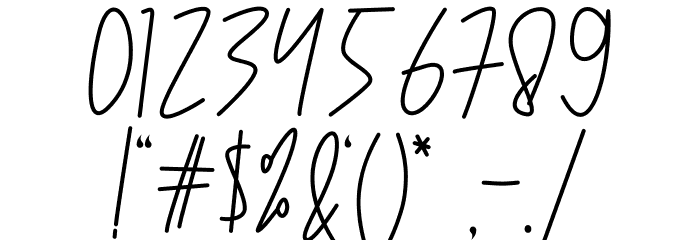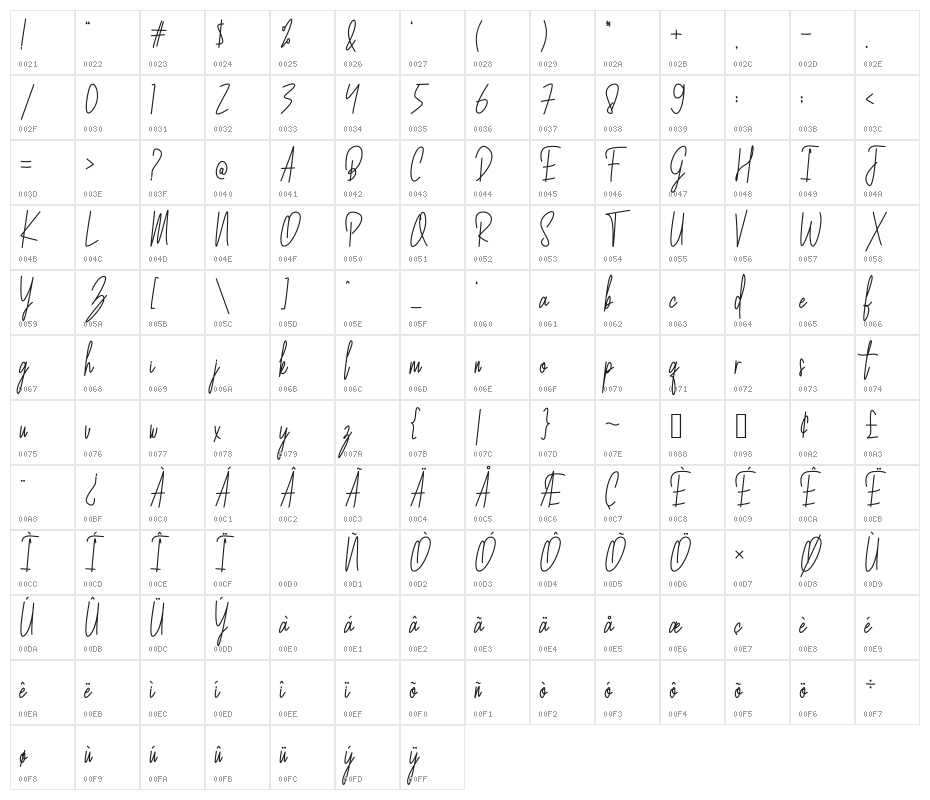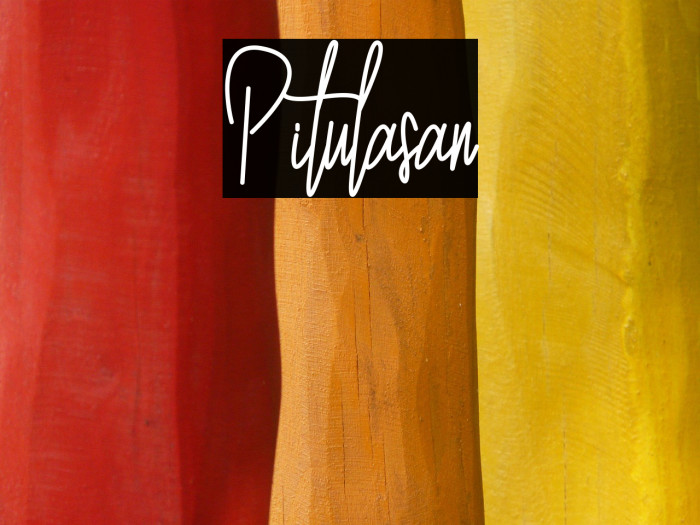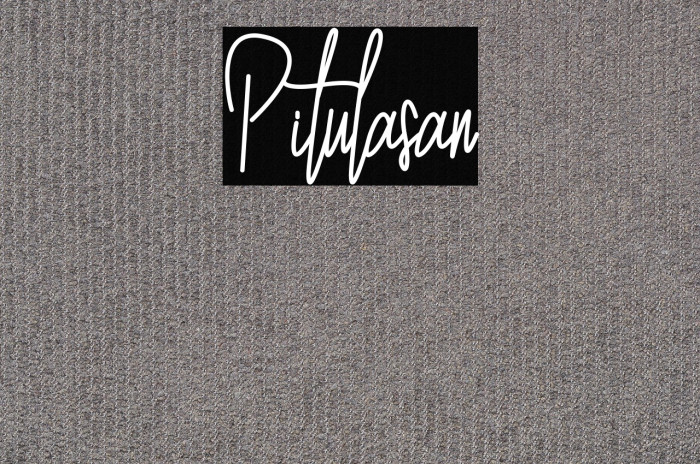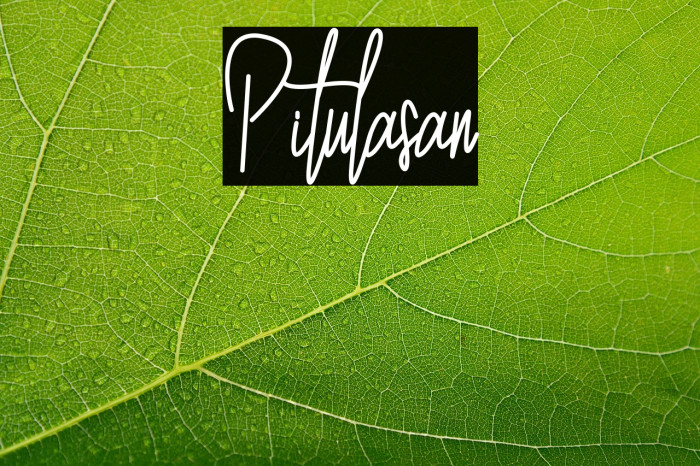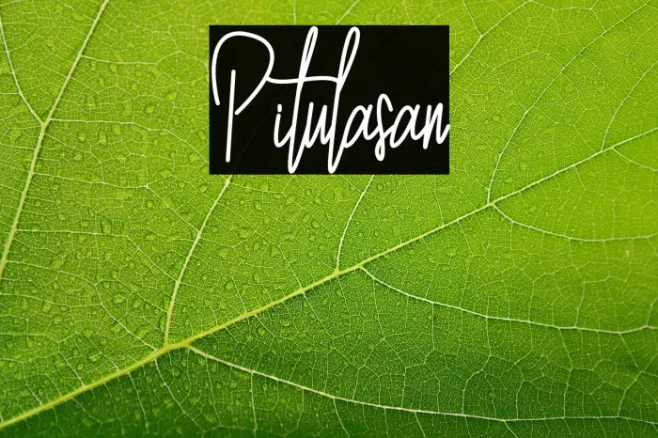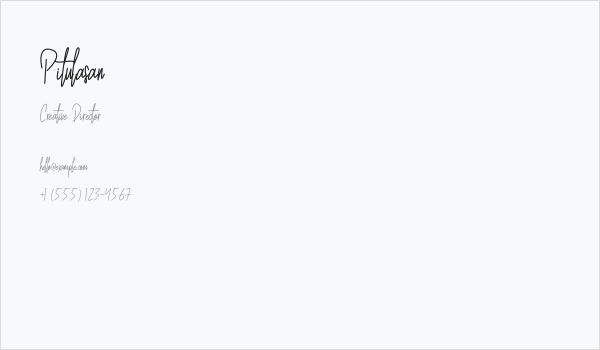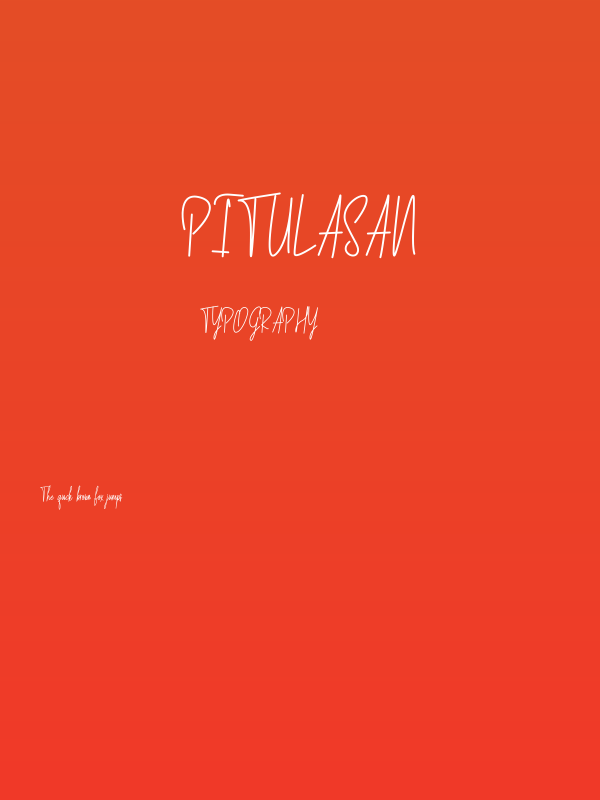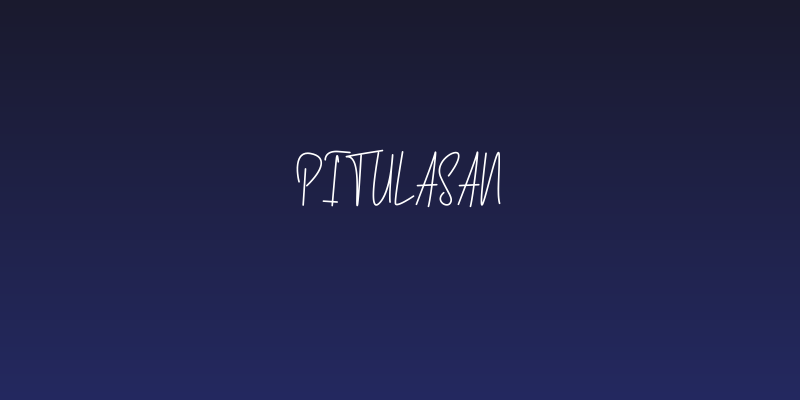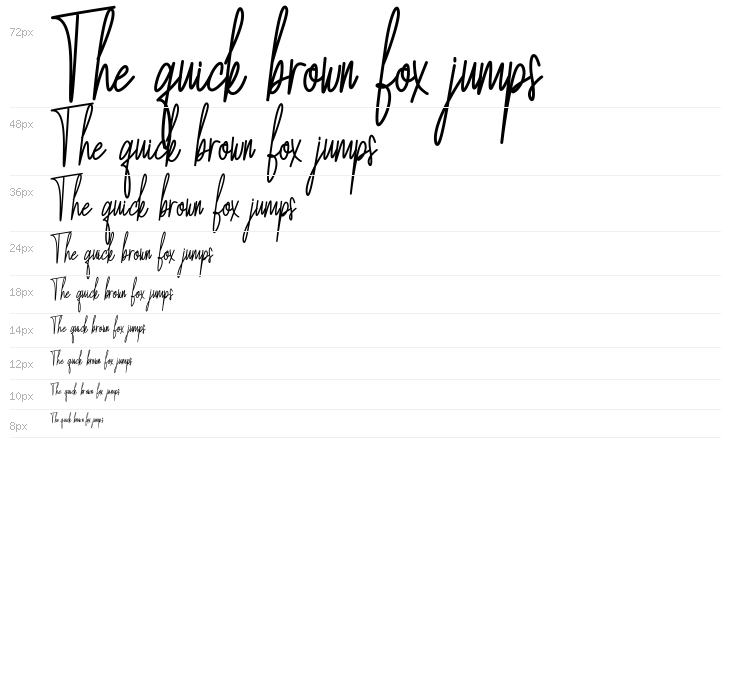
Pitulasan Font
Pitulasan Description
This font features a dynamic and fluid handwritten style, characterized by its elongated and slightly slanted letterforms. The uppercase letters are tall and narrow, with a playful yet elegant appearance, while the lowercase letters maintain a consistent flow, enhancing the script-like quality. The numbers and special characters follow the same aesthetic, providing a cohesive look across all elements. The strokes are thin, with a consistent width that gives the font a light and airy feel. This font is ideal for projects that require a personal touch, such as invitations, greeting cards, or branding materials that aim to convey a sense of warmth and approachability.
| Proposed Projects | Ideal for invitations, greeting cards, personal branding, and creative projects. |